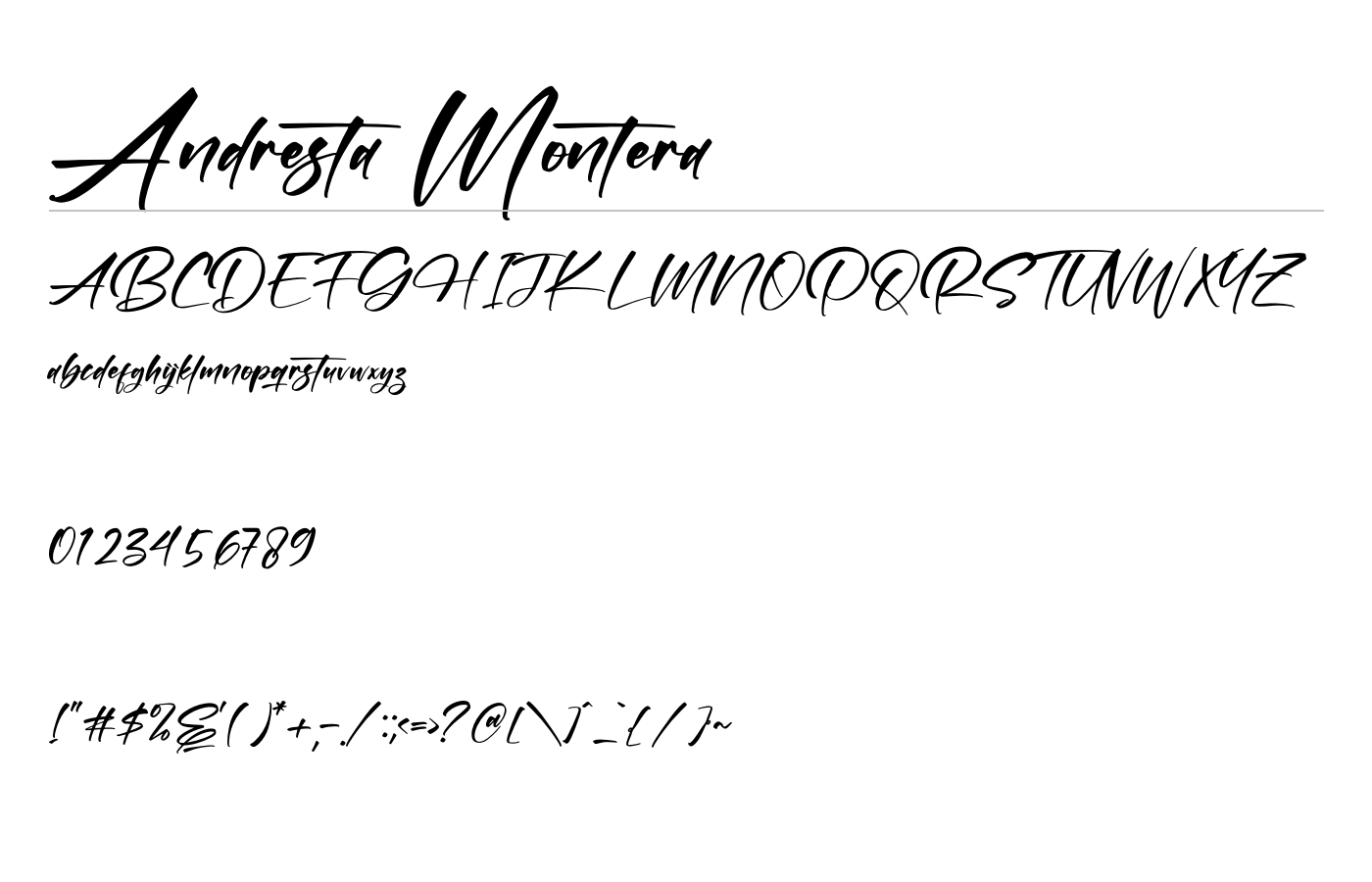
Andresta Montera is a stylish handwritten script font characterized by its elegant, flowing letterforms and varied stroke weights that create a dynamic, natural feel. Its tall, narrow shapes with sharp, expressive lines lend a modern yet personal touch, making it perfect for branding, invitations, and creative projects that seek a blend of sophistication and individuality. This font shines in headlines and logos where a distinctive, artistic flair is desired.
Andresta Montera Font
About Andresta Montera Font